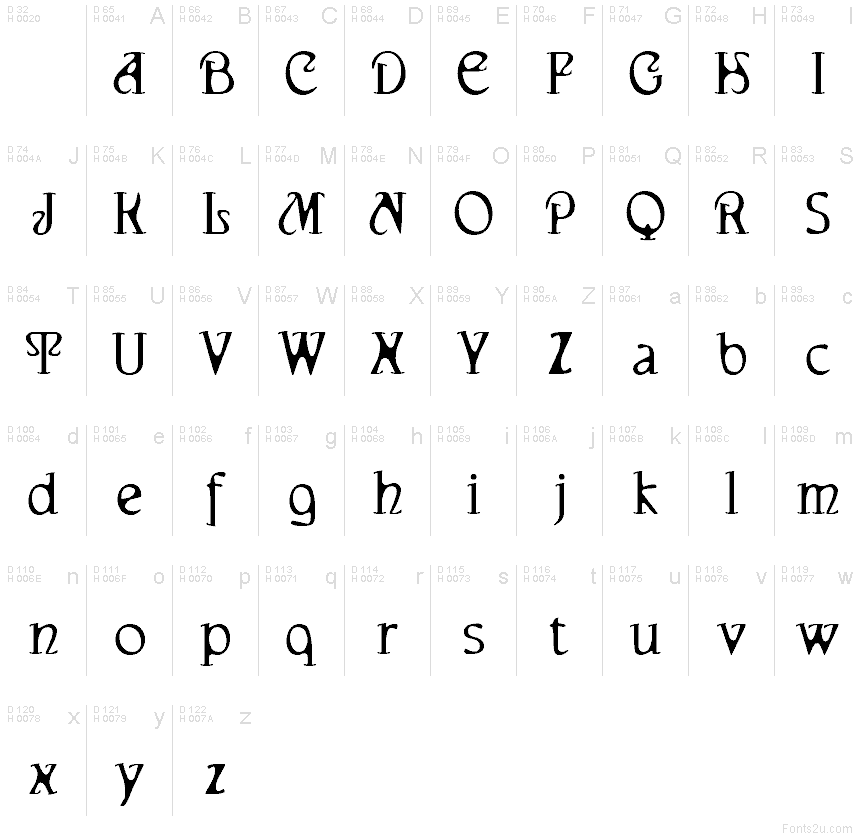
CSMorishDrawn-Regular Demo
CS Morish Drawn font by Craft Supply Co. is a free hand-drawn vintage display serif font. Built within the CS Morish family, it leans on inky, slightly rough edges, tapering strokes, and flared serifs that curl with a calligrapher’s snap. The letters sway with a gentle, old-world rhythm—high contrast without stiffness—so headlines feel artisanal rather than antique-shop dusty.
Using CS Morish Drawn, your titles snap to attention on boutique logos, craft packaging, heritage posters, book covers, café menus, labels, and event invitations. The generous curves and alive stroke contrast create presence at large sizes while keeping warmth up close. Pair this free font with a quiet geometric sans and a touch of extra tracking to let the hand-hewn texture breathe.
CS Morish Drawn Demo